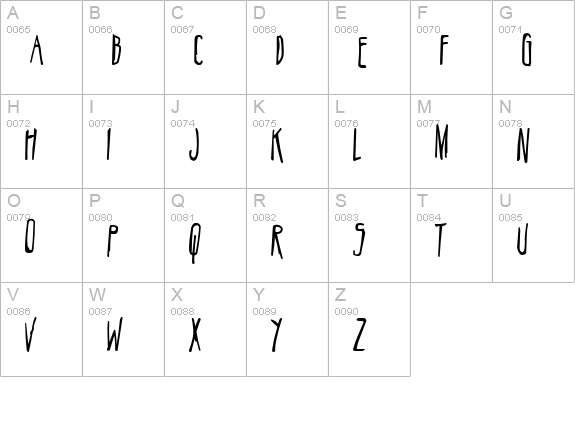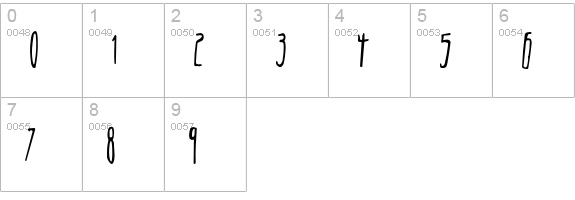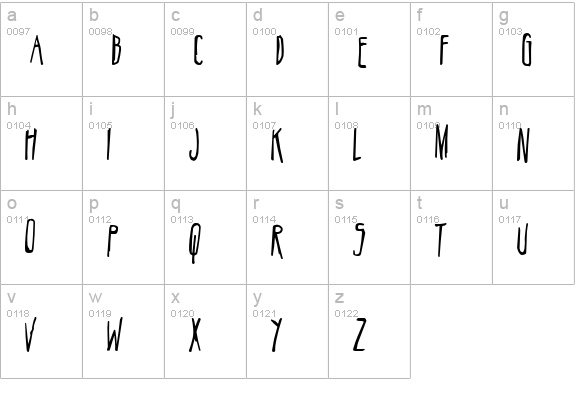
Belizarius font is a modern and elegant typeface that exudes sophistication and style. Its sleek lines and graceful curves make it perfect for a variety of design projects, from branding to editorial design. With its classic yet contemporary appeal, Belizarius font adds a touch of class to any project. The best part? Belizarius font is available for free download at FontsMarket.com. This means you can easily access this stunning font and incorporate it into your designs without any cost. Whether you're working on a logo, website, or print materials, Belizarius font will elevate your design and make a lasting impression. Don't miss out on the opportunity to enhance your projects with the beauty of Belizarius font. Download it for free today at FontsMarket.com and see the difference it can make in your designs.